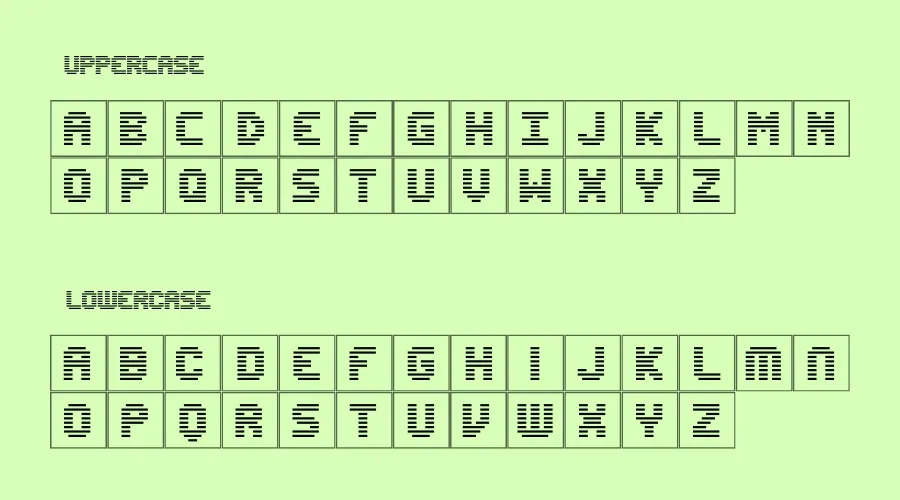
About Edit Undo Line Brk Font
Edit Undo Line Brk Font is designed by Ænigma it is a techno text style. Users can try this font on any project that needs a unique look. This type of font is best suited to make unique headlines and bold text.
This typeface has excellent features and supports many languages. The alternative font to this stunning is falcons font, you can create beautiful and decorative designs.
When you want to increase the creativity of your project, this style is a great option. This style is excellent in terms of its basic elements. This font has traditional typography.